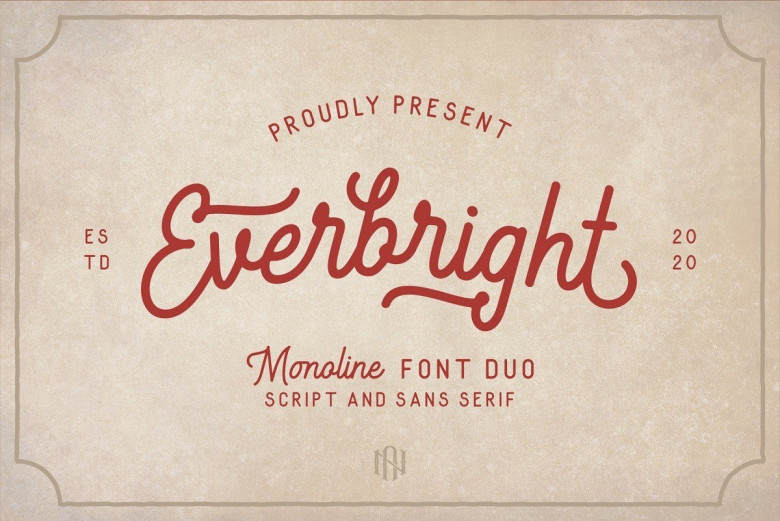
Everbright Font Duo Free
Introducing Everbright Font Duo, a balanced, contemporary monoline script and sans serif font. Everbright offers a strong identity to your projects, including logos & branding, product designs, wedding invitations, posters, book covers, social media campaigns and many more.